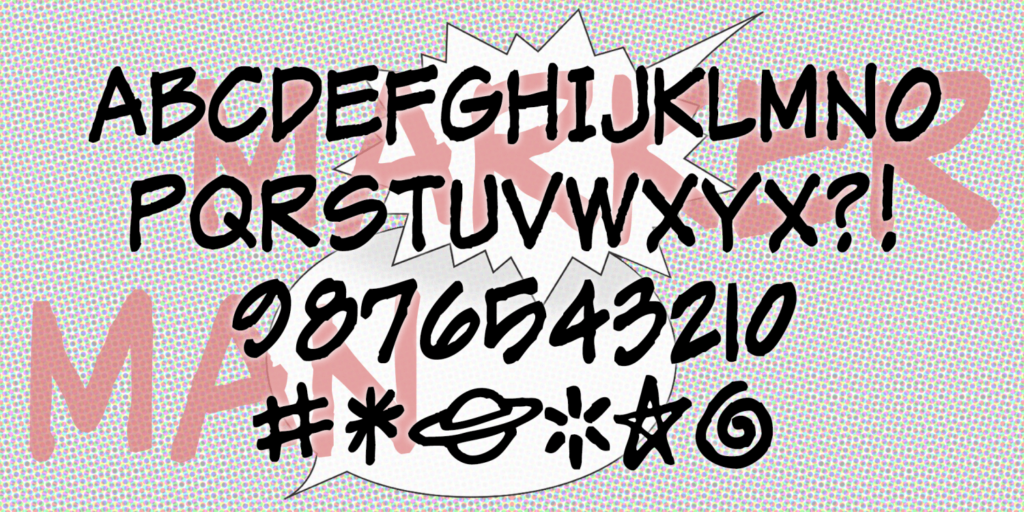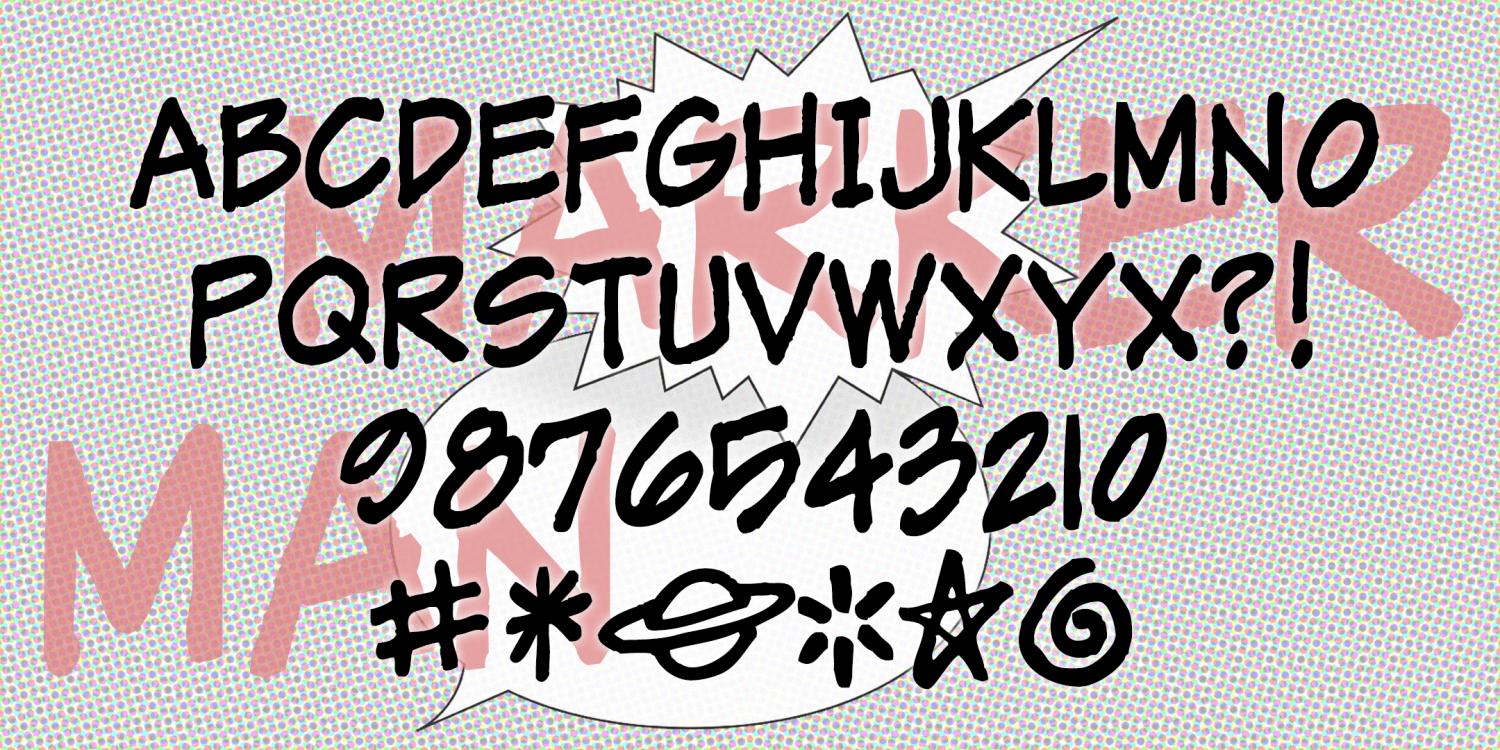
MarkerMan
About MarkerMan
MARKERMAN is yet another comic-book style font. Can be bolded or italicized effectively. Includes 5 useful comic symbols you may find useful. Includes several characters of use to comic artists: the squean (which might float around a drunken character's…